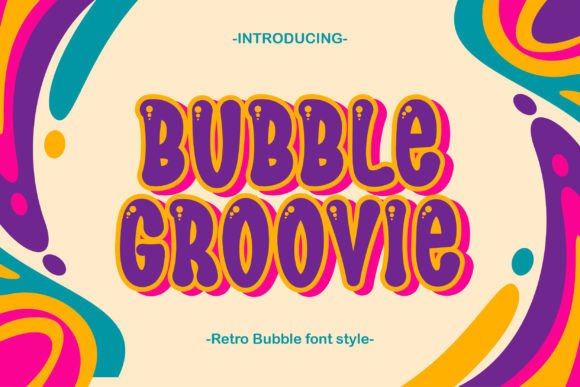
Bubble Groovie: The Modern Retro Font That Actually Works
In the crowded landscape of digital typography, finding a typeface that balances nostalgia with contemporary utility is often more difficult than it appears. Many designers reach for "retro" fonts only to find them illegible at small sizes or clunky in professional applications. Bubble Groovie was created to solve this specific friction point. It is not merely another decorative font; it is a strategic design tool engineered to bring the playful energy of bubble lettering into serious branding and creative projects without sacrificing readability.
Whether you are crafting a logo for a new startup, designing packaging for a small business, or creating engaging content for social media platforms like Instagram and YouTube, the choice of typography dictates how your message is received. Bubble Groovie stands out because it offers a dual-style architecture, presenting both clean and decorative variations within a single family. This flexibility allows you to maintain visual consistency while adapting to different spatial constraints. However, even the best tools can be misused if the user does not understand their capabilities and limitations.
Understanding the Dual-Style Advantage
The core strength of Bubble Groovie lies in its versatility. Unlike many "fun" fonts that offer only one heavy, outlined style, this typeface provides two distinct pathways for your text. You have access to a crisp, clean version that functions well as body copy or secondary text, and a highly decorative variation perfect for headlines and focal points. This duality is crucial for maintaining hierarchy in your designs.
A common mistake creators make when using bubble fonts is applying the most ornate version to every piece of text. When a reader encounters a paragraph written entirely in a thick, bubbly style, the eye struggles to track the information, leading to poor retention and a perception of low quality. By leveraging the clean variation of Bubble Groovie for supporting text and reserving the decorative style for impact moments, you create a balanced composition that guides the viewer naturally through your content.
Pitfalls to Avoid When Integrating Bubble Fonts
While Bubble Groovie is designed to be robust, there are several common errors that can undermine its effectiveness. Recognizing these pitfalls early can save you from costly redesigns and ensure your final output looks professional rather than amateurish.
Ignoring Readability Constraints
One of the most frequent oversights is assuming that a bold, retro font works at any size. While Bubble Groovie is packed with a full range of upper and lower case letters, numbers, and punctuation, its decorative nature means it requires adequate spacing and size to remain legible. Using the decorative variant for fine print on product packaging or small captions on a website can render the text unreadable. Always test your design at 100% scale before finalizing. If the bubbles blur together or the internal counters (the holes inside letters like 'o' or 'e') close up, you need to switch to the clean variation or increase the font size significantly.
Mismatching Brand Identity
Another subtle but critical error is forcing a bubbly aesthetic onto brands that require a serious, corporate tone. Bubble Groovie exudes a modern, bubbly vibe that is perfect for lifestyle brands, children's products, entertainment channels, and creative agencies. However, it may feel jarring in contexts demanding strict formality, such as legal documents or financial reports. Before committing to this typeface, evaluate your brand voice. Does your audience expect playfulness? If so, Bubble Groovie is an excellent fit. If not, consider using it sparingly as an accent element rather than the primary typeface.
Neglecting Multi-Lingual Support
Many decorative fonts lack comprehensive character sets, limiting their use to English-only projects. A significant advantage of Bubble Groovie is its multi-lingual support. Creators often overlook this feature until they need to localize a project, discovering too late that their chosen font cannot render accents or special characters required for Spanish, French, or German markets. Always verify the character map during the evaluation phase. Ensuring your font supports the necessary glyphs prevents the awkward practice of switching fonts mid-sentence, which breaks visual harmony and dilutes your brand identity.
Practical Applications for Maximum Impact
To get the most out of Bubble Groovie, apply it where its unique characteristics shine brightest. Here are realistic scenarios where this font elevates a project:
- Logos and Brand Identities: Use the decorative style for the main logotype to grab attention, paired with the clean style for taglines. This combination creates a memorable mark that feels established yet approachable.
- Cricut Projects and Stickers: The bold strokes of Bubble Groovie cut cleanly on vinyl and paper, making it ideal for DIY crafts, stickers, and t-shirt transfers. The thick lines hold up well during the weeding process, ensuring a crisp final product.
- Social Media Graphics: For YouTube thumbnails or Instagram posts, the high contrast of the font ensures your headlines pop against busy backgrounds. The retro aesthetic aligns perfectly with current trends in video content and influencer marketing.
- Packaging Design: On product labels, the font adds a tactile, friendly feel. Just remember to keep the text large enough to be read from a shelf distance.
Whether you are a beginner looking to add personality to a hobby project or a professional designer seeking a versatile asset for your toolkit, this font provides the structure needed to execute your vision effectively. Take the time to explore its dual styles, test its multi-lingual capabilities, and match it thoughtfully to your brand's personality. When used correctly, Bubble Groovie becomes more than just a font; it becomes a defining element of your visual language.